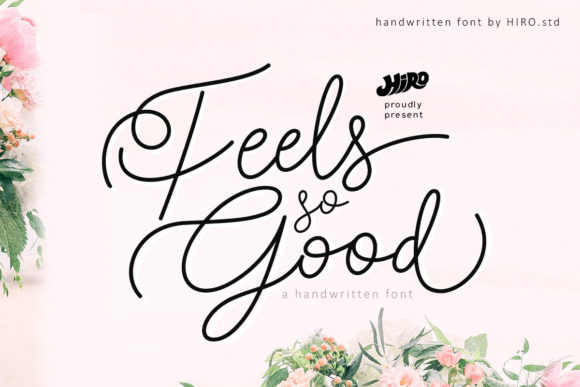
Meet "Feels So Good" - The Enchanting Script Font That Will Make Your Designs Sing!
In a world of mundane fonts, "Feels So Good" emerges as a breath of fresh air, a symphony of elegance and grace that will transform your creative visions into captivating realities. Prepare to be mesmerized as this delicate, flowing handwritten font dances across your screen, its well-balanced characters harmonizing perfectly to create a visual masterpiece.
With "Feels So Good," you hold the key to unlocking a world of design possibilities. Its versatility knows no bounds, effortlessly complementing a vast array of projects, from whimsical invitations and heartfelt letters to captivating branding and stunning social media posts. Let your imagination soar as you witness the transformative power of this exquisite font, breathing life into your words and captivating the hearts of your audience.
Immerse yourself in the world of "Feels So Good" and discover a font that's more than just a collection of letters; it's an experience, an emotion, a journey of self-expression. Its delicate strokes, reminiscent of a gentle caress, will evoke a sense of warmth and intimacy that resonates with your audience. Prepare to be swept away by the beauty of "Feels So Good" as it elevates your designs to new heights of sophistication and elegance.
In the ever-evolving landscape of digital design, "Feels So Good" stands as a timeless classic, a font that will endure the test of time. Its timeless appeal ensures that your creations will remain captivating and relevant, leaving a lasting impression on all who encounter them. Embrace the allure of "Feels So Good" and embark on a creative journey that will redefine your design aesthetic.